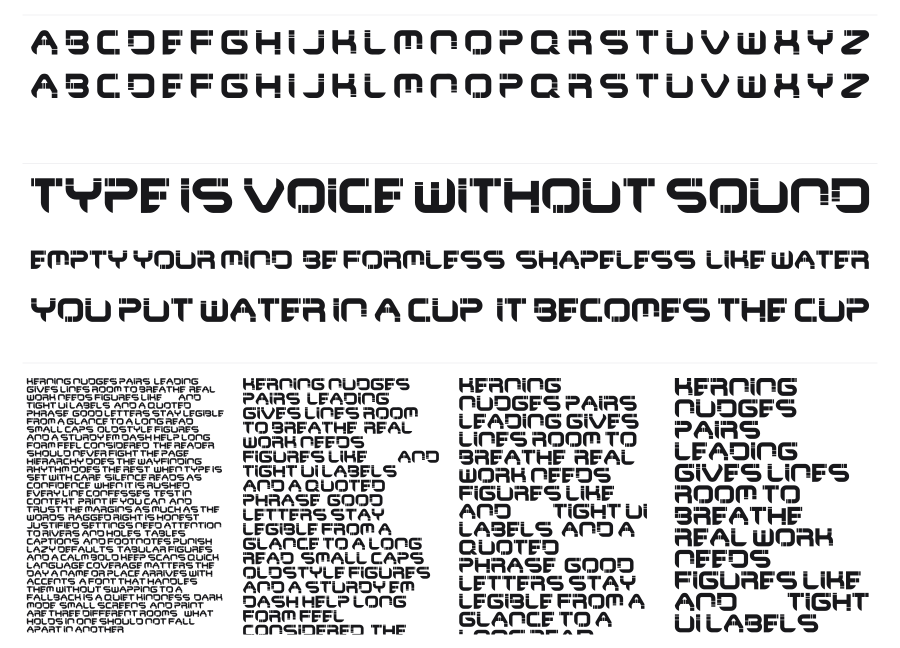
Maya Culpa
Maya Culpa is a heavy, blocky display face from mch with dense geometric letterforms that feel like they were designed for the hull of a spacecraft. The squared-off construction and bold weight give it a distinctly sci-fi, industrial presence, built for headlines and title screens where you need something massive and unapologetically modern.